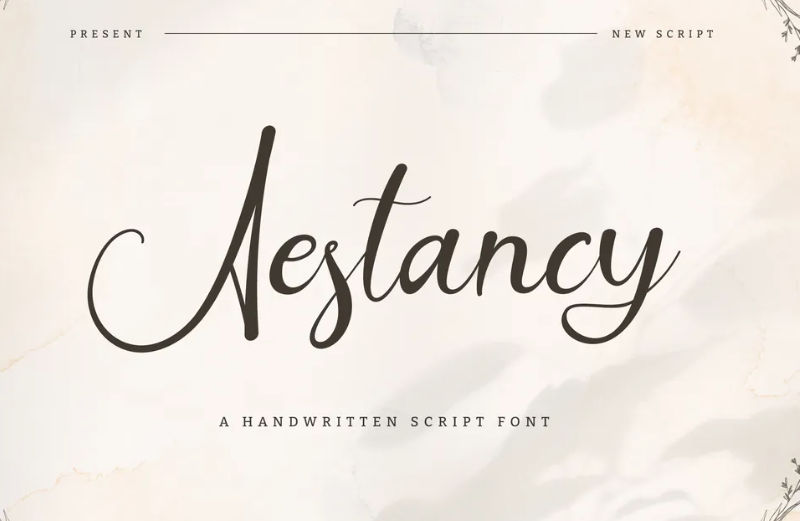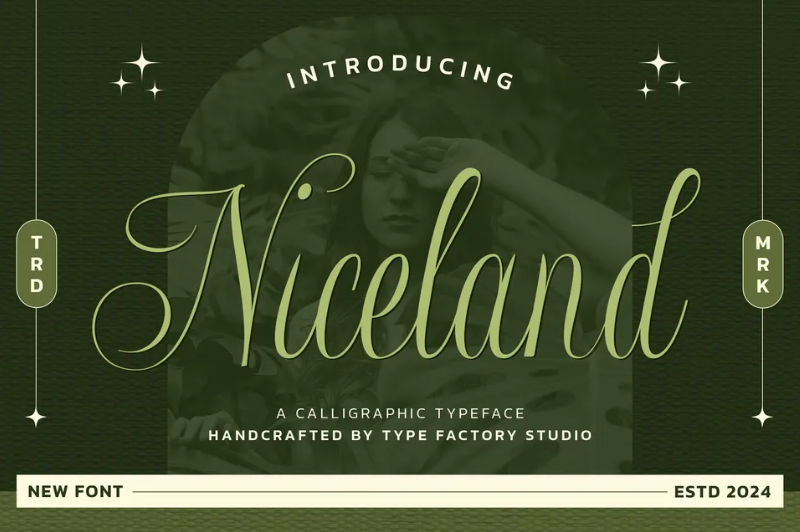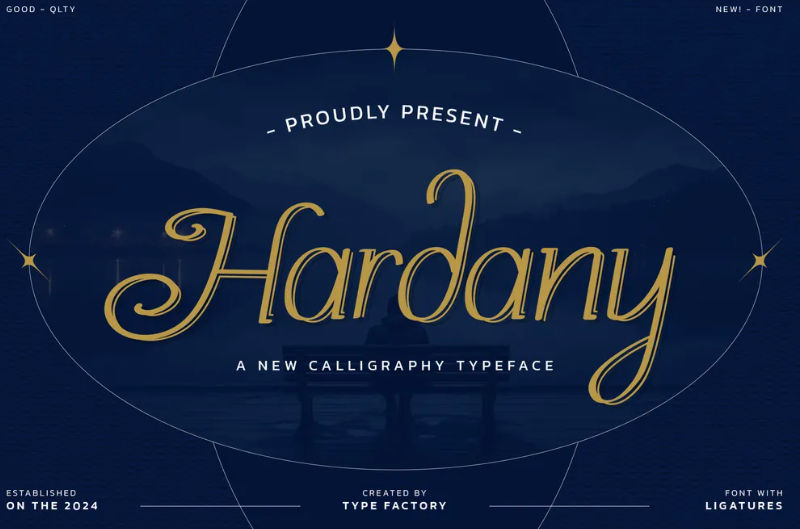
60 Meaningful Quotes in Sadness for Reflection and Acceptance
Love doesn’t always fall apart; sometimes it moves gently, hand in hand with hope. But when heartbreak arrives, it shapes us into someone wiser and deeper than before. In those fragile moments, quotes in sadness become quiet companions that speak what we cannot. They remind us that pain, though heavy, is often the beginning of growth.
At first, denial wraps around the heart like a shield against the truth. However, as time passes, acceptance slowly teaches us how to breathe again. Through reflection and meaningful words, healing transforms into something powerful and personal. So, if your heart needs understanding and strength, keep reading and let these words hold you!
60 Quotes in Sadness to Help You Feel Understood
Now wipe your tears, because below you’ll find sixty heartfelt quotes in sadness for relationships to gently accompany your healing journey. Rise, rebuild, and start coming back stronger than ever!
Quotes in Sadness About Deep Grief and Loss
1. Grief lingers where love once lived.
2. Loss echoes in the quietest moments.
3. My heart remembers what arms cannot.
4. Absence grows heavier with passing days.
5. Tears speak when words fall apart.
6. Memories bloom where goodbye was planted.
7. Silence carries the weight of goodbye.
8. Love remains, even after everything leaves.
9. The emptiness whispers your forgotten name.
10. Healing begins where sorrow is honored.
Sad Quotes About Melancholic Reflection in Relationships
1. We loved deeply, but understood too late.
2. Your silence echoes louder than arguments.
3. Memories linger where promises once bloomed.
4. We outgrew the dreams we built.
5. Love faded quietly between unfinished conversations.
6. I miss who we used to be.
7. Distance grew while we stood together.
8. Our forever paused without warning signs.
9. Feelings changed, but photographs stayed smiling.
10. Goodbye arrived before we were ready.
Sad Quotes About Mental Exhaustion in Toxic Relationships
1. I’m tired of fighting for us alone.
2. Loving you feels heavier every day.
3. My heart is exhausted from trying.
4. We talk, but never truly connect.
5. I miss who we used to be.
6. Carrying this relationship drains my soul.
7. I’m present, but emotionally checked out.
8. Even love shouldn’t feel this hard.
9. I’m tired of begging for effort.
10. Staying feels lonelier than leaving you.
Quotes in Sadness About Heartbreak and Betrayal
1. You promised forever, then vanished silently.
2. Trust shattered louder than my breaking.
3. Your lies bloomed where love once lived.
4. I believed you; betrayal believed otherwise.
5. My heart learned the truth through pain.
6. You held my hand, not loyalty.
7. Love left quietly, betrayal stayed screaming.
8. I lost you, but found clarity.
9. Your apology arrived after the damage was settled.
10. Broken trust echoes longer than goodbye.
Sorrow Quotes About Sadness in Love
1. Love left quietly, but pain stayed.
2. Your goodbye still echoes in me.
3. I loved you beyond my breaking.
4. Hearts crack louder in silence.
5. Missing you feels like endless winter.
6. We faded before I understood why.
7. Your absence will be rewritten every tomorrow.
8. Love promised forever, delivered loneliness instead.
9. I stayed loyal to disappearing affection.
10. Our memories hurt more than goodbyes.
The Hidden Struggle of Masking Sadness Quotes
1. Smiling brightly while my heart collapses.
2. Laughter hides the storms behind eyes.
3. I wear joy like borrowed clothing.
4. My silence screams beneath polite conversations.
5. Pretending strength while breaking internally daily.
6. Happiness performed, sorrow rehearsed in private.
7. Behind confidence lives an unspoken fragile ache.
8. I mastered smiling through invisible bruises.
9. Applause fades, sadness stays after curtains.
10. Fine outside, unraveling quietly within.
7 Romantic Yet Melancholic Fonts for Relationship Sad Quotes
To visualize the quotes in sadness above, you need the right matching fonts so the message can be conveyed clearly. Here are the recommendations to consider.
1. Aestancy
A soft and flowing handwritten style that feels intimate, perfect for tender heartbreak quotes.
2. Niceland
Elegant and refined, this calligraphic font adds a graceful romantic touch to emotional relationship quotes.
3. Hardany
With dramatic curves and expressive strokes, it enhances the depth of sorrow and passion in sad love quotes.